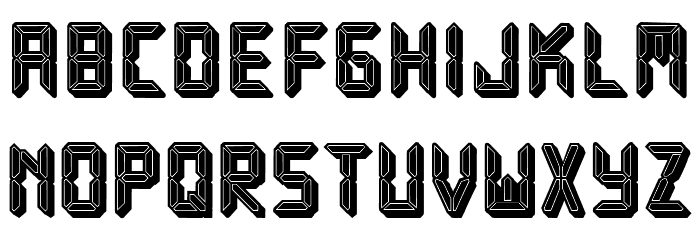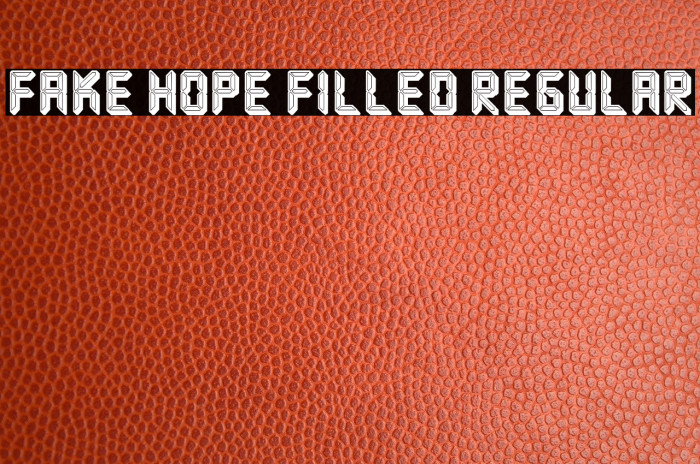
Fake Hope Filled Regular Font
This font features a bold, geometric design with a futuristic and digital aesthetic. Each character is constructed with angular, segmented lines that resemble the display of a digital clock or a retro video game interface. The style is highly decorative, with a three-dimensional effect created by the use of shading and outlines. The uppercase and lowercase letters maintain a consistent blocky form, while the numbers and special characters follow the same angular theme. This font is ideal for projects that require a modern, tech-inspired look.
A bold, geometric font with a digital, futuristic style.
- Proposed Projects: Ideal for technology-themed designs, video game graphics, digital interfaces, and modern branding projects.
- Use Case: Logos, Headlines, Digital interfaces